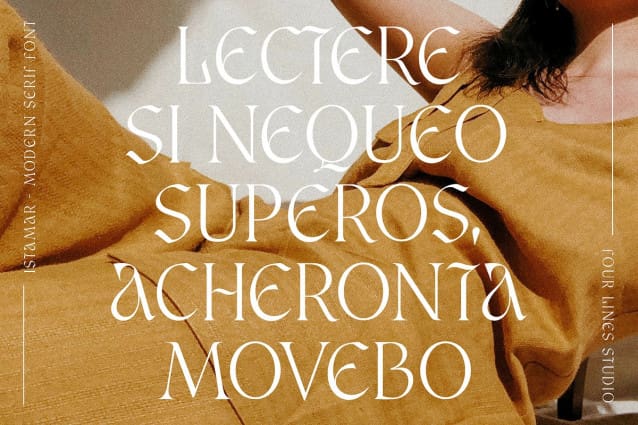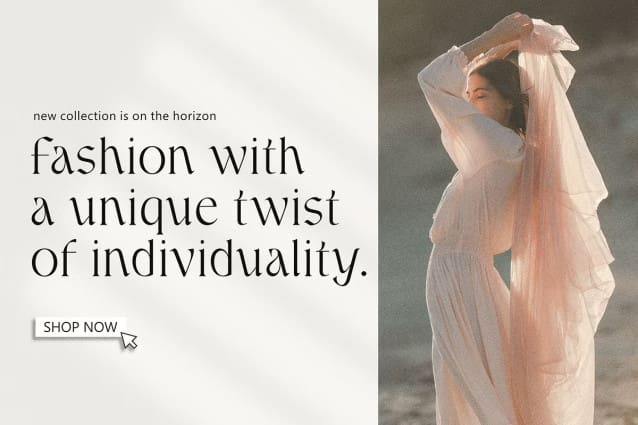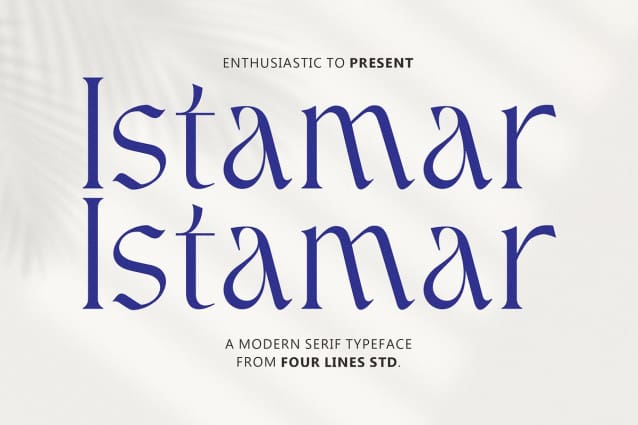
Istamar Font
Istamar Font is a modern serif font that elegantly combines grace and timeless charm. Its opulent and refined characters are meticulously crafted for branding endeavors in any project.